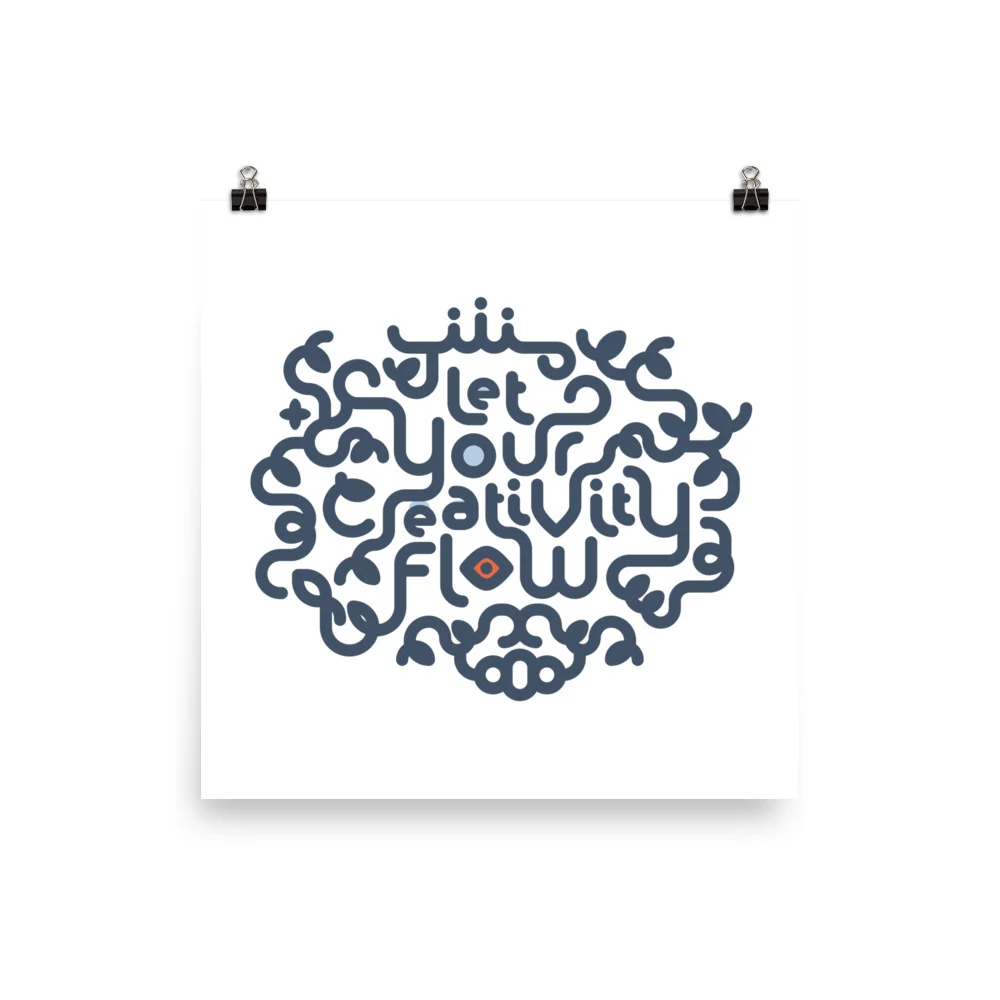
Home Sweet Home Decorative Typography Poster
We created this Home Sweet Home poster with our very own Alio™ Pro+Decor typeface combo. The swirl design exudes a whimsical, contemporary feel. The black and white design background goes with most room environment. Let’s make your home the sweetest as it can be.